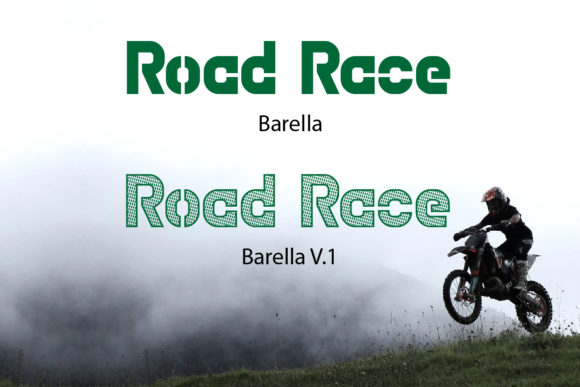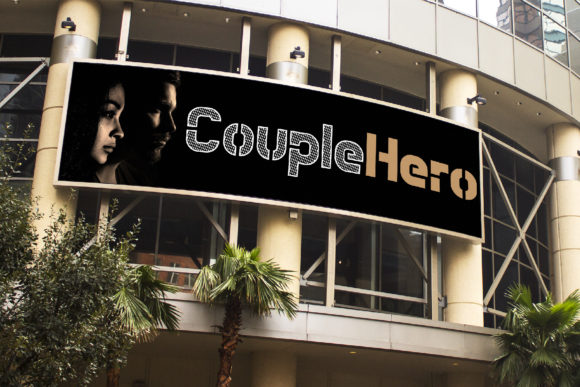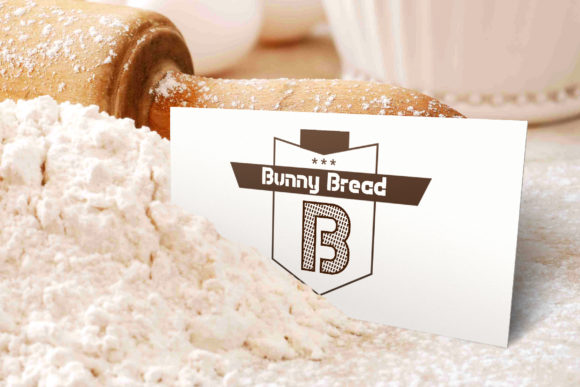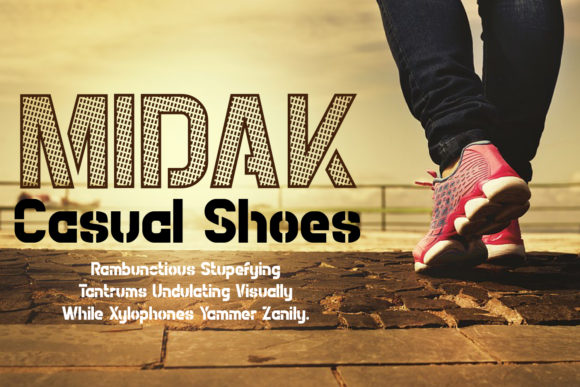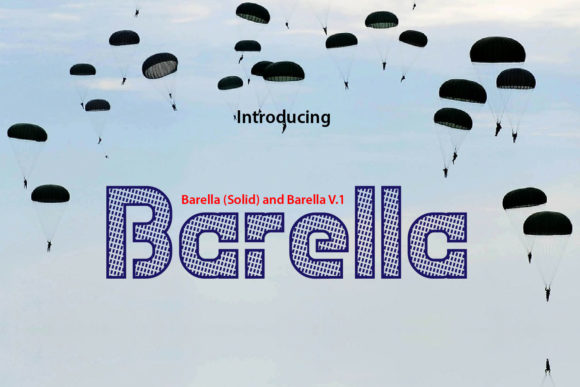
Barella Font: Elevate Your Crafting Projects with Authentic Decorative Style
Are you a designer or crafter looking for a unique and authentic decorative font to elevate your projects? Look no further than Barella Font! This stunning font is perfect for adding a touch of elegance and sophistication to your crafting endeavors. In this article, we’ll dive into the world of Barella Font, exploring its features, benefits, and uses, as well as provide tips and inspiration for incorporating it into your creative projects.
What is Barella Font?
Barella Font is an authentic decorative font that has taken the crafting world by storm. With its unique and stylish design, it’s perfect for adding a personal touch to your projects. The font comes in two different versions, which can be used together to create truly outstanding crafting projects.
Features of Barella Font
So, what makes Barella Font so special? Here are just a few of its key features:
- Authentic Decorative Style: Barella Font boasts an authentic decorative style that’s perfect for adding a touch of elegance to your projects.
- Two Different Versions: The font comes in two different versions, which can be used together to create unique and eye-catching designs.
- Easy to Use: Barella Font is easy to use and can be incorporated into a variety of crafting projects, from paper crafting to mixed media.
- High-Quality Design: The font has been designed with high-quality and clarity in mind, ensuring that it looks great in any project.
Benefits of Using Barella Font
So, why should you choose Barella Font for your crafting projects? Here are just a few benefits of using this amazing font:
- Adds a Personal Touch: Barella Font allows you to add a personal touch to your projects, making them truly unique and special.
- Elevates Your Designs: The font’s authentic decorative style elevates your designs, adding a level of sophistication and elegance.
- Versatile: Barella Font can be used in a variety of crafting projects, from cards and invitations to scrapbooking and mixed media.
- Easy to Pair: The font’s two different versions can be paired together to create stunning designs that are sure to impress.
Using Barella Font in Your Crafting Projects
So, how can you use Barella Font in your crafting projects? Here are a few ideas to get you started:
- Paper Crafting: Use Barella Font to add a personal touch to your cards, invitations, and other paper crafting projects.
- Mixed Media: Incorporate Barella Font into your mixed media projects, such as art journals and collages.
- Scrapbooking: Add a touch of elegance to your scrapbooking projects with Barella Font.
- DIY Crafts: Use Barella Font to add a personal touch to your DIY crafts, such as signs and home decor.
Here are a few tips and inspiration to help you get the most out of Barella Font:
- Experiment with Different Colors: Try pairing Barella Font with different colors and textures to create unique and eye-catching designs.
- Mix and Match: Experiment with mixing and matching the two different versions of Barella Font to create stunning designs.
- Add Graphics and Images: Add graphics and images to your projects to create a truly unique and personalized design.
- Use Online Resources: Take advantage of online resources, such as tutorials and blogs, to learn more about using Barella Font in your crafting projects.
Barella Font is an authentic decorative font that’s perfect for designers and crafters looking to add a touch of elegance and sophistication to their projects. With its two different versions and easy-to-use design, it’s perfect for a variety of crafting projects, from paper crafting to mixed media. Whether you’re a seasoned crafter or just starting out, Barella Font is sure to inspire and elevate your designs.